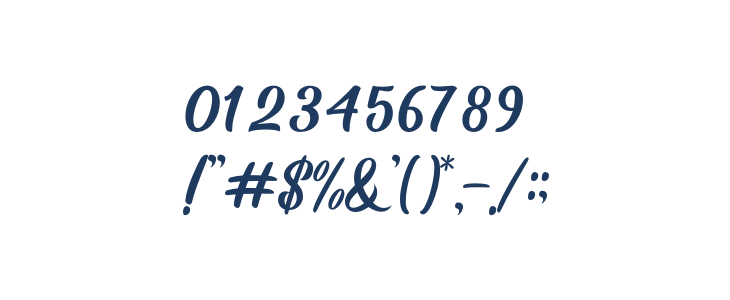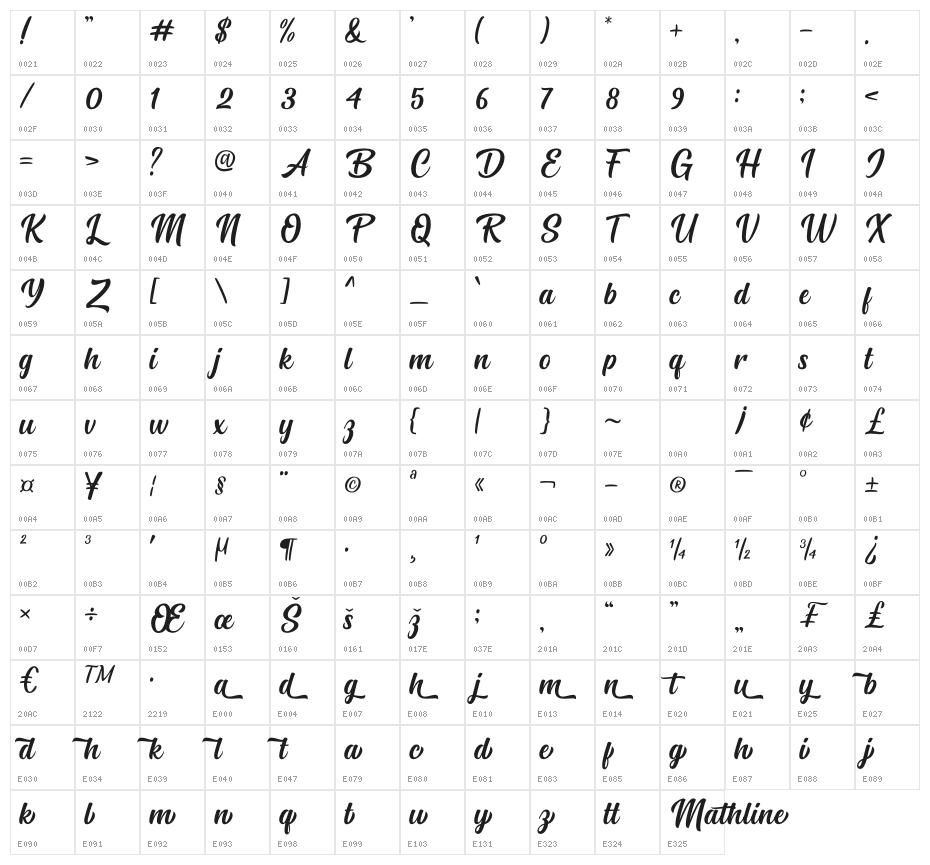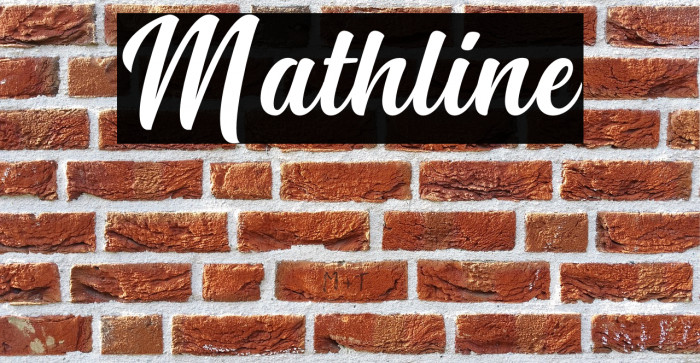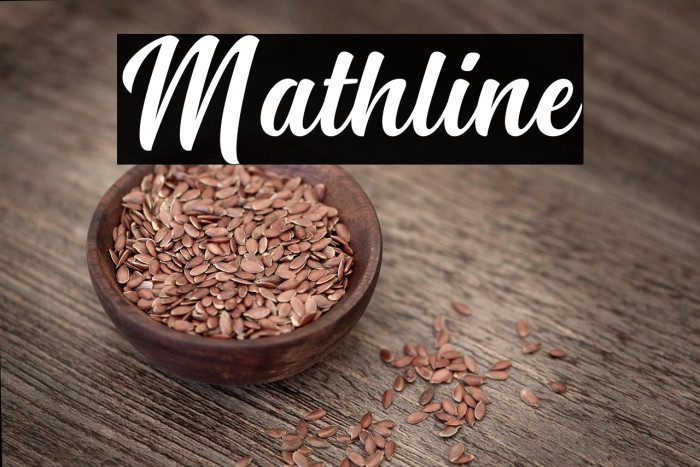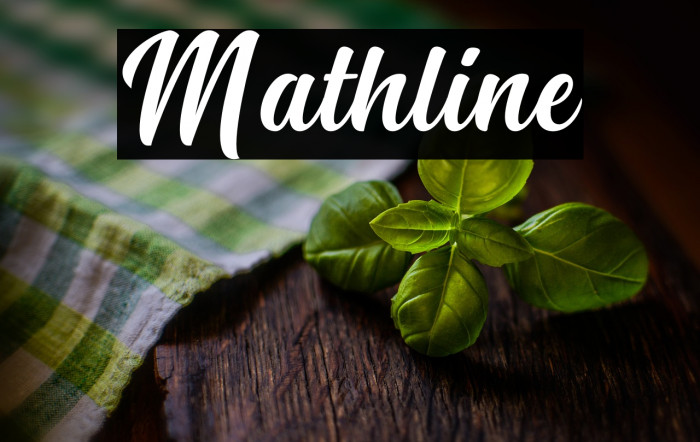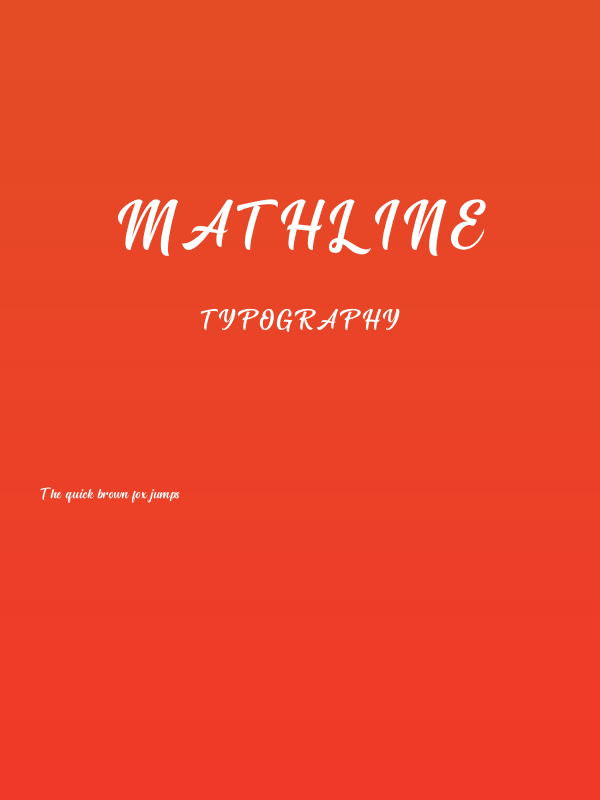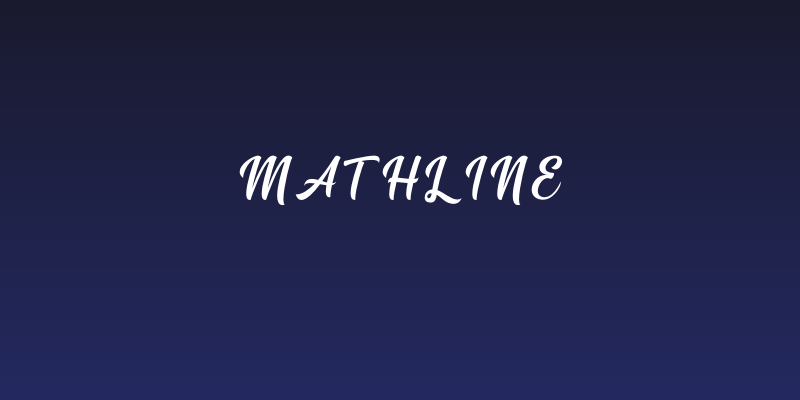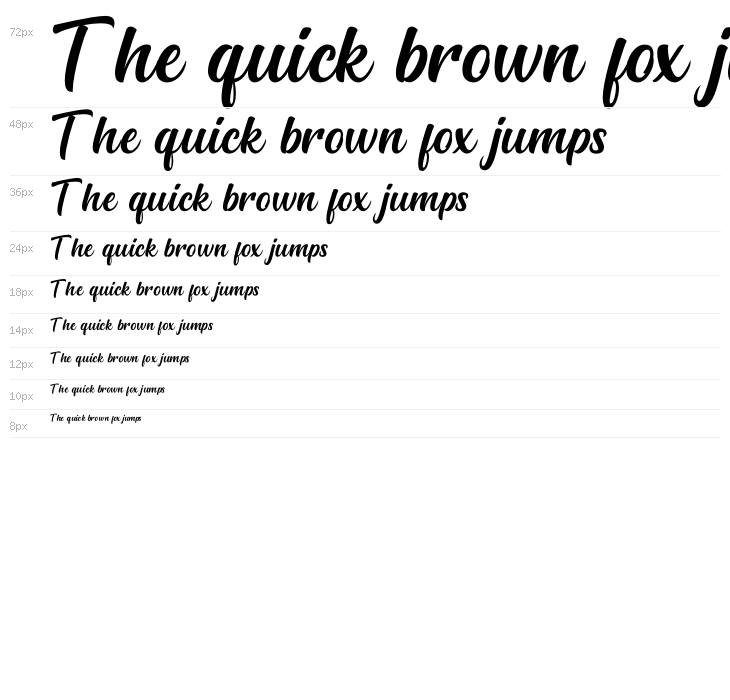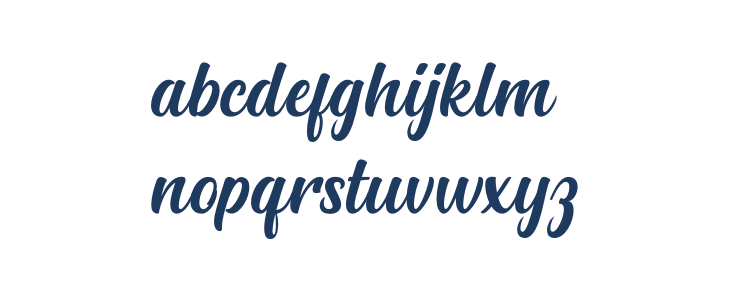
Mathline Font
Mathline Description
This font exudes a classic and elegant script style, characterized by its flowing, cursive letterforms. The uppercase letters are bold and slightly slanted, giving a sense of movement and grace. The lowercase letters maintain a consistent flow, with smooth connections between each character. The numerals are distinct and easy to read, complementing the overall aesthetic. Special characters are well-integrated, maintaining the font's cohesive style. The font's design is suitable for projects that require a touch of sophistication and elegance, such as invitations, branding, and decorative purposes.
| Overall Style | Classic |
| Use Case | Logos, Invitations, Decorative text |
| Proposed Projects | Ideal for wedding invitations, elegant branding, decorative signage, and sophisticated print materials. |